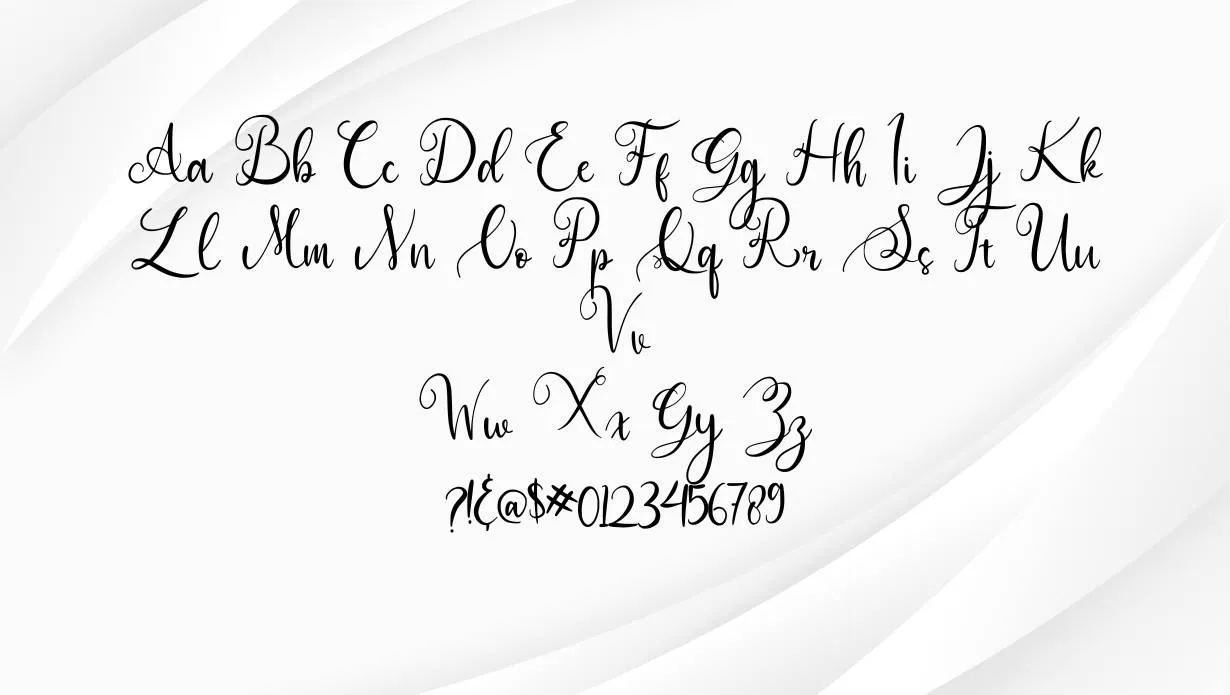
Agatha font gracefully pirouettes onto the page, adding a touch of elegance and sophistication to your words. It’s the prima ballerina of fonts, perfect for creating invitations or infusing a sense of refinement.
With a gracefully medium weight and elegantly proportioned width, Agatha delicately dances across the page, turning your text into a visual ballet of style and charm.